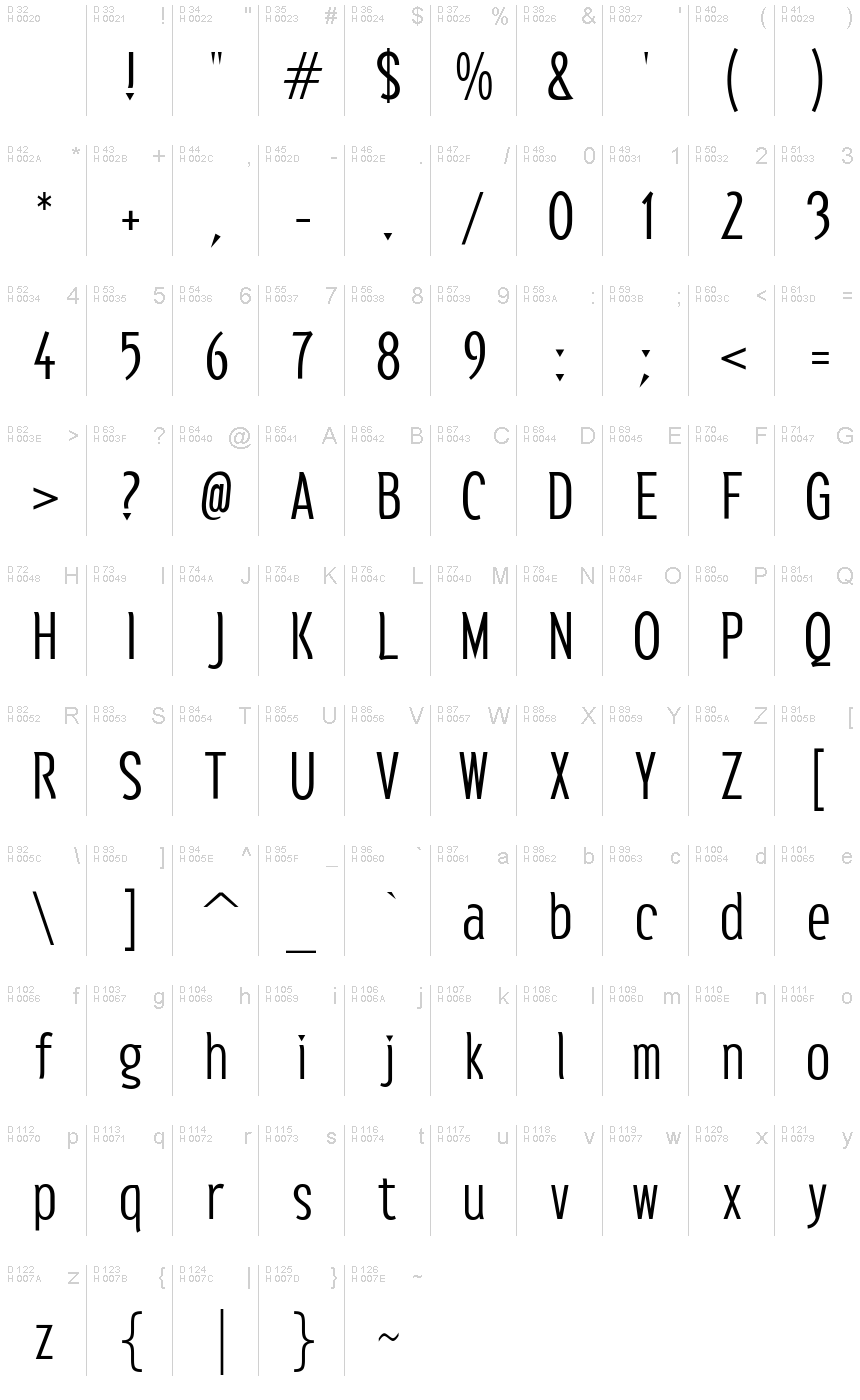
Susanna
Susanna is a captivating sans-serif font that exudes a harmonious blend of classic elegance and modern flair. Its condensed width lends a refined sophistication, while the sharp, angular strokes create a striking visual impact. This versatile font's clean lines and balanced proportions make it an ideal choice for a wide range of design applications, from editorial layouts and branding to packaging and signage.
Susanna's strong, yet approachable personality shines through, making it a versatile tool for designers seeking to craft compelling typographic statements.
A light, sans-serif font was designed for Susanna Lakner's 22 Days mail art project. The characters were drawn on each of the 22 evenings throughout November 2004. In December, the drawings were scanned to create the Susanna font.
Susanna's strong, yet approachable personality shines through, making it a versatile tool for designers seeking to craft compelling typographic statements.
A light, sans-serif font was designed for Susanna Lakner's 22 Days mail art project. The characters were drawn on each of the 22 evenings throughout November 2004. In December, the drawings were scanned to create the Susanna font.